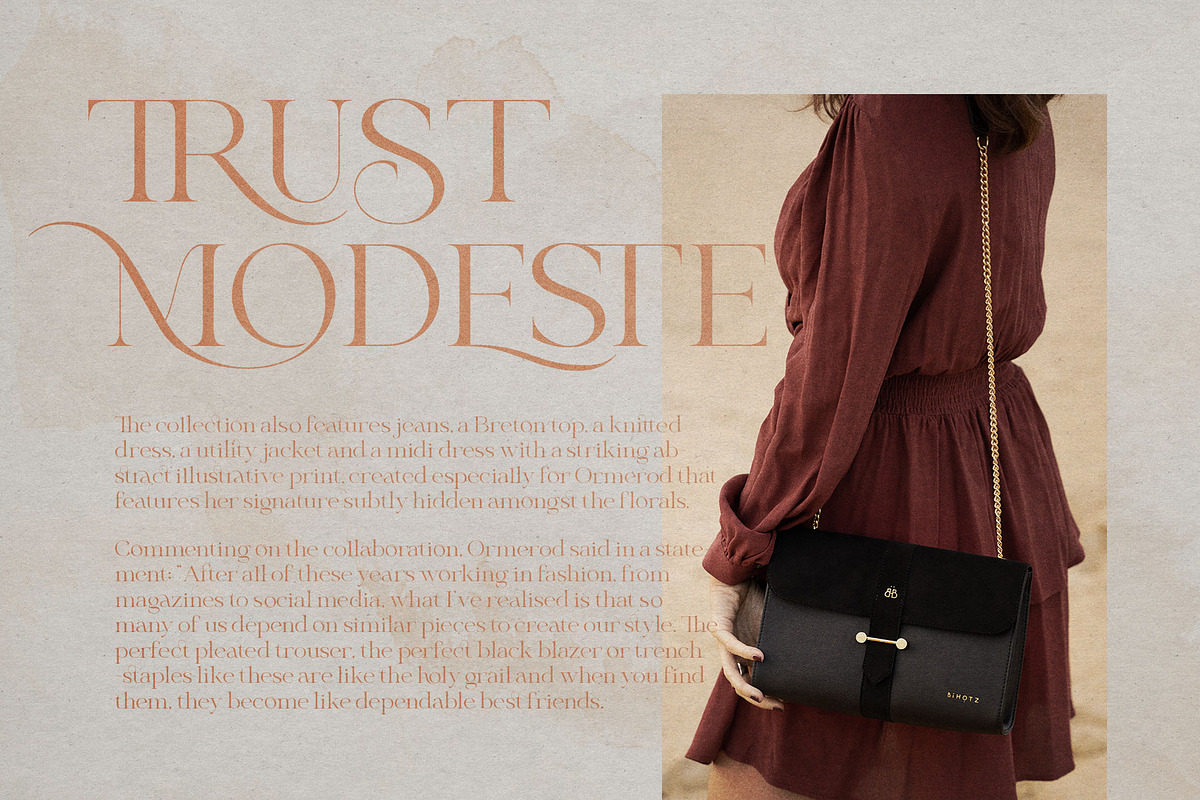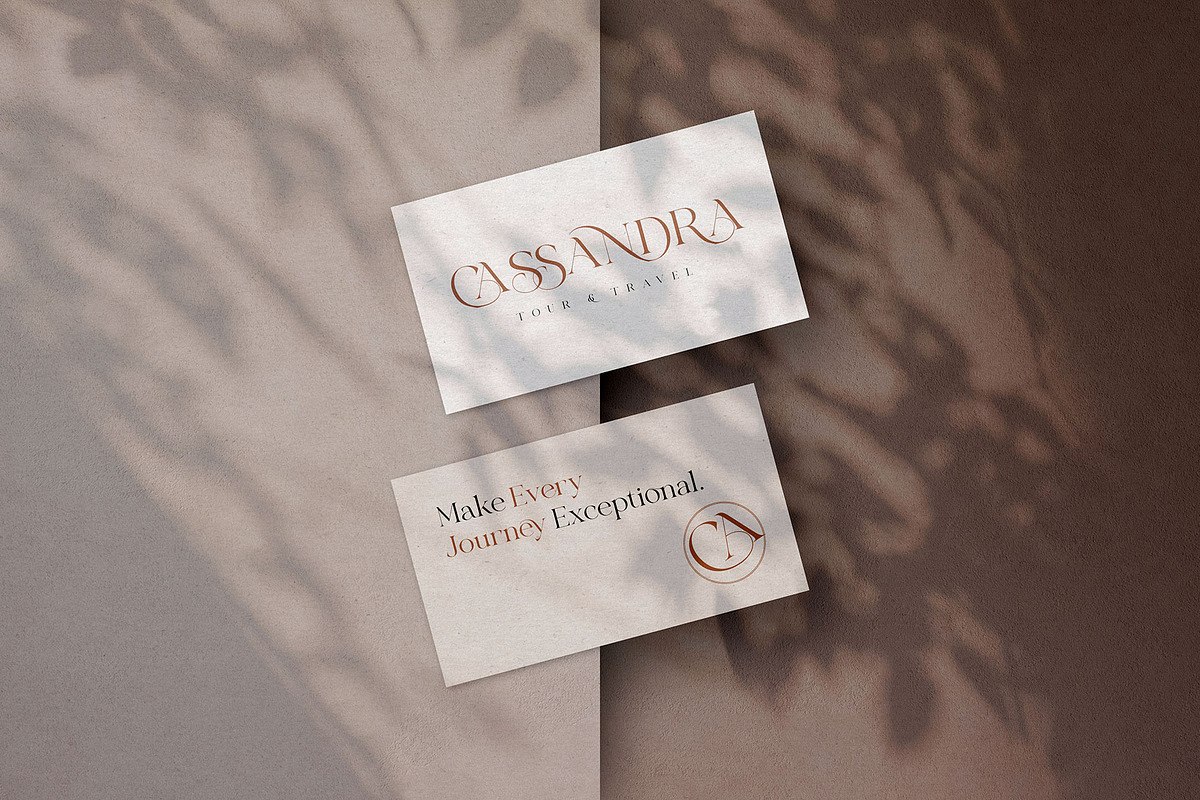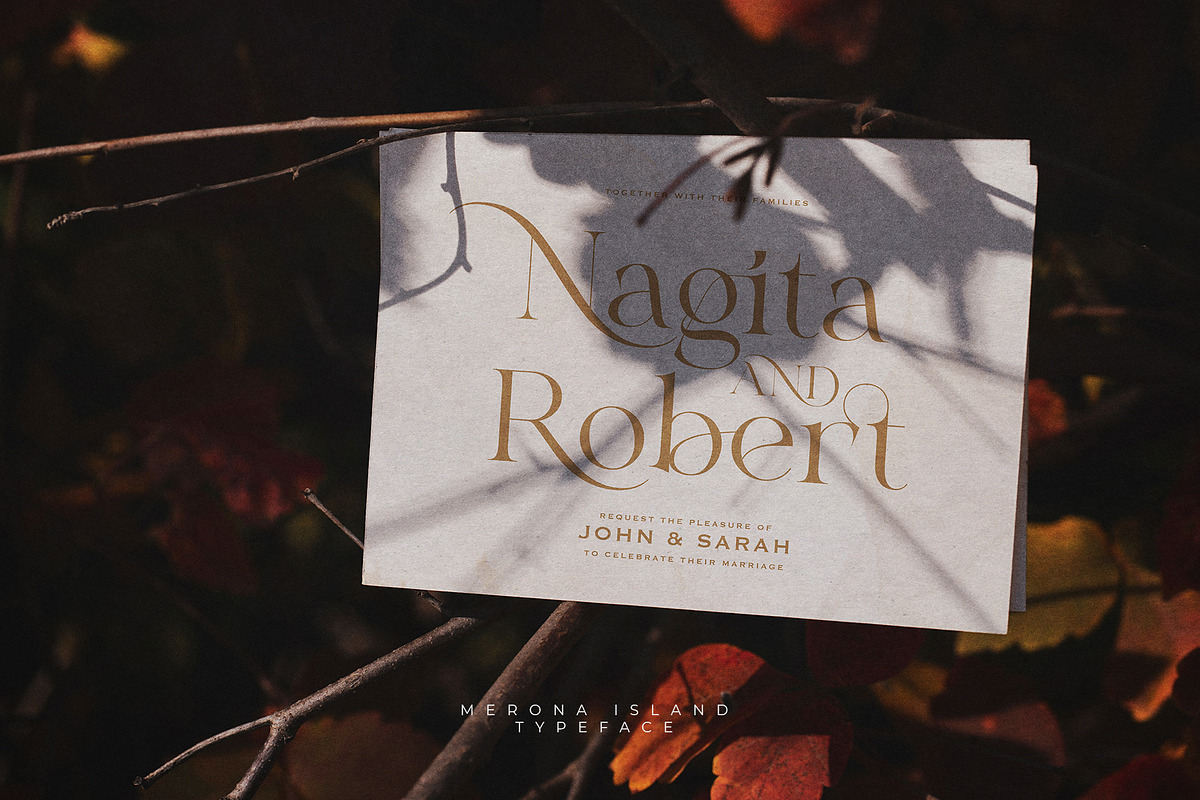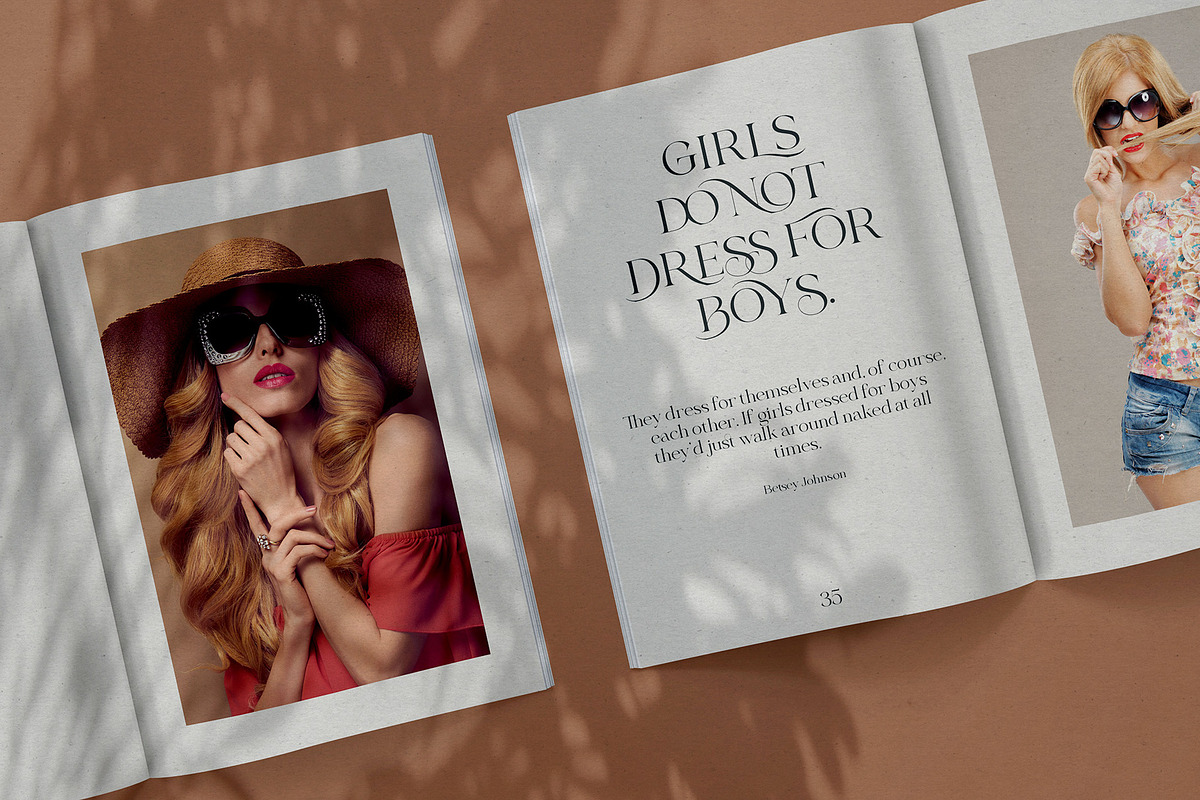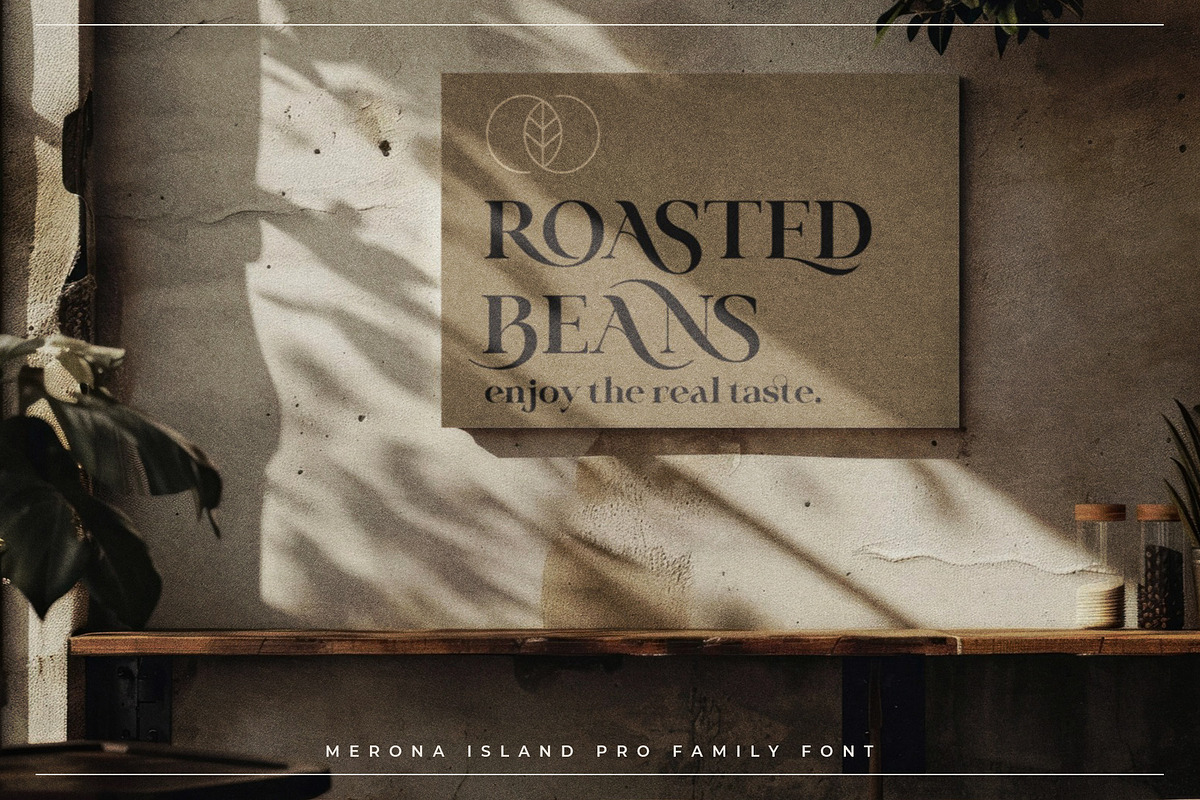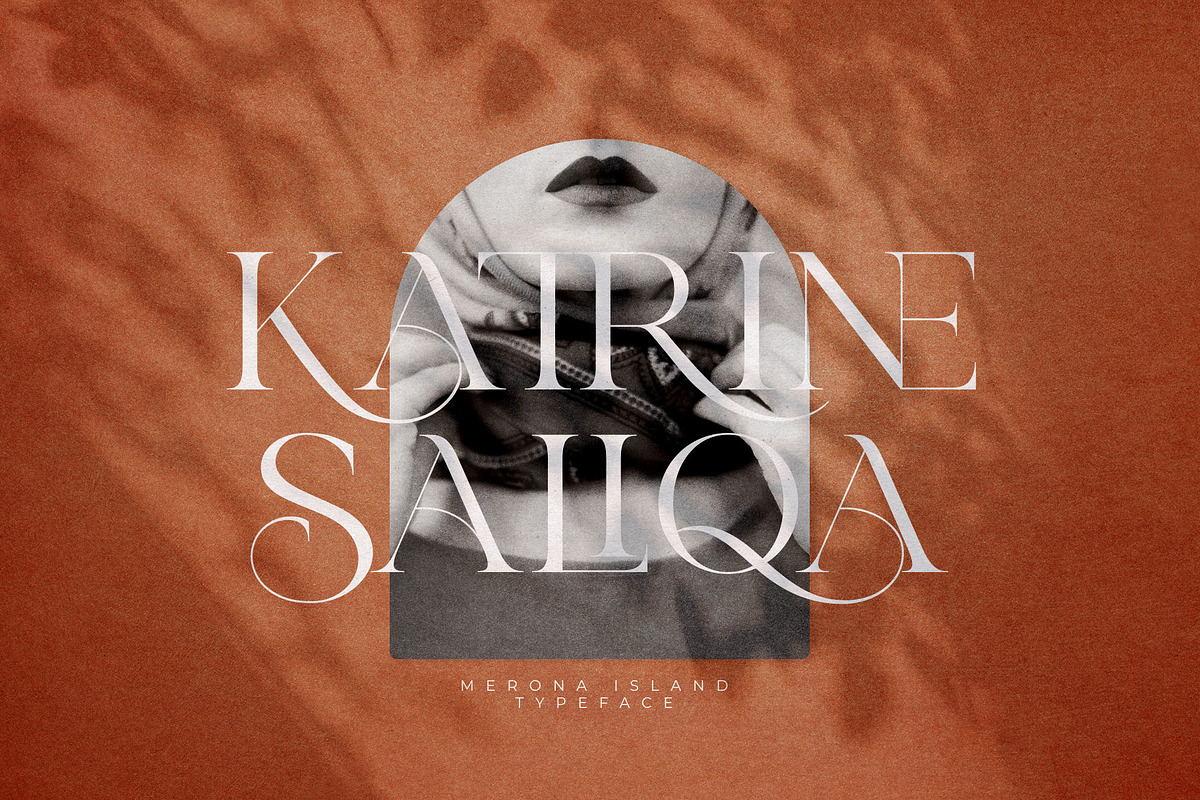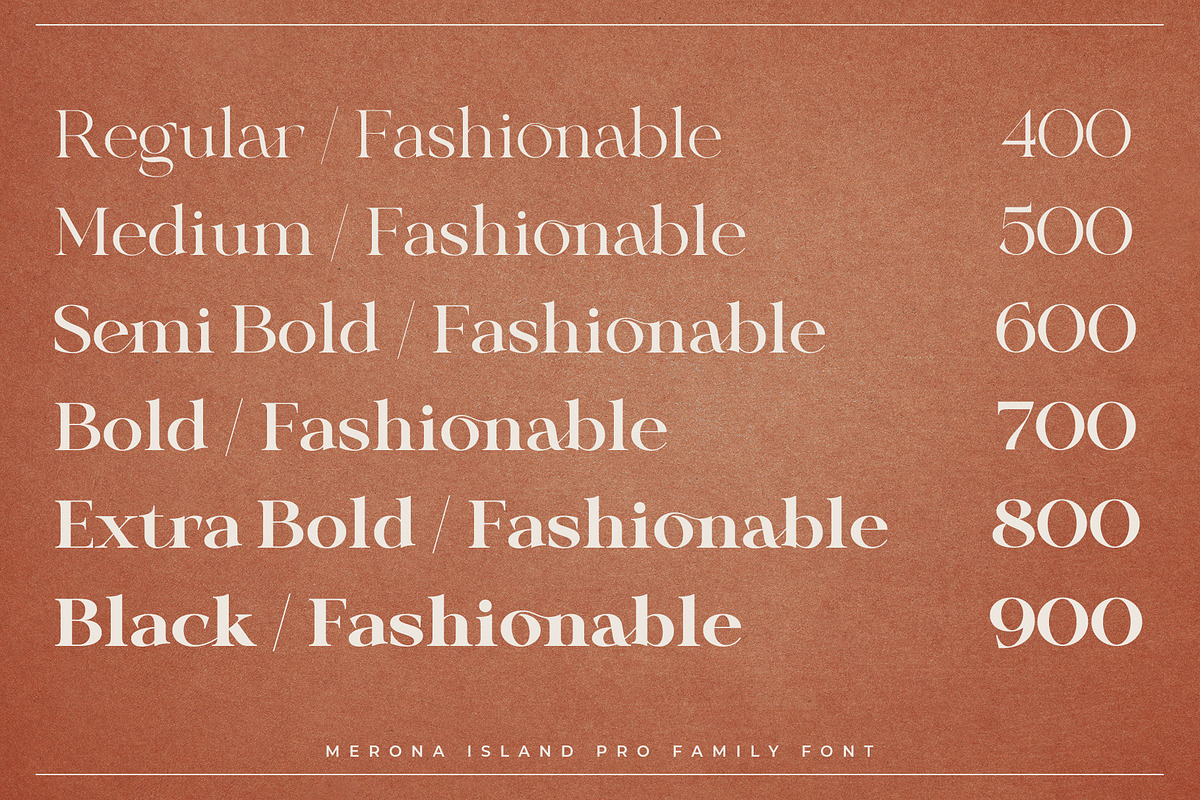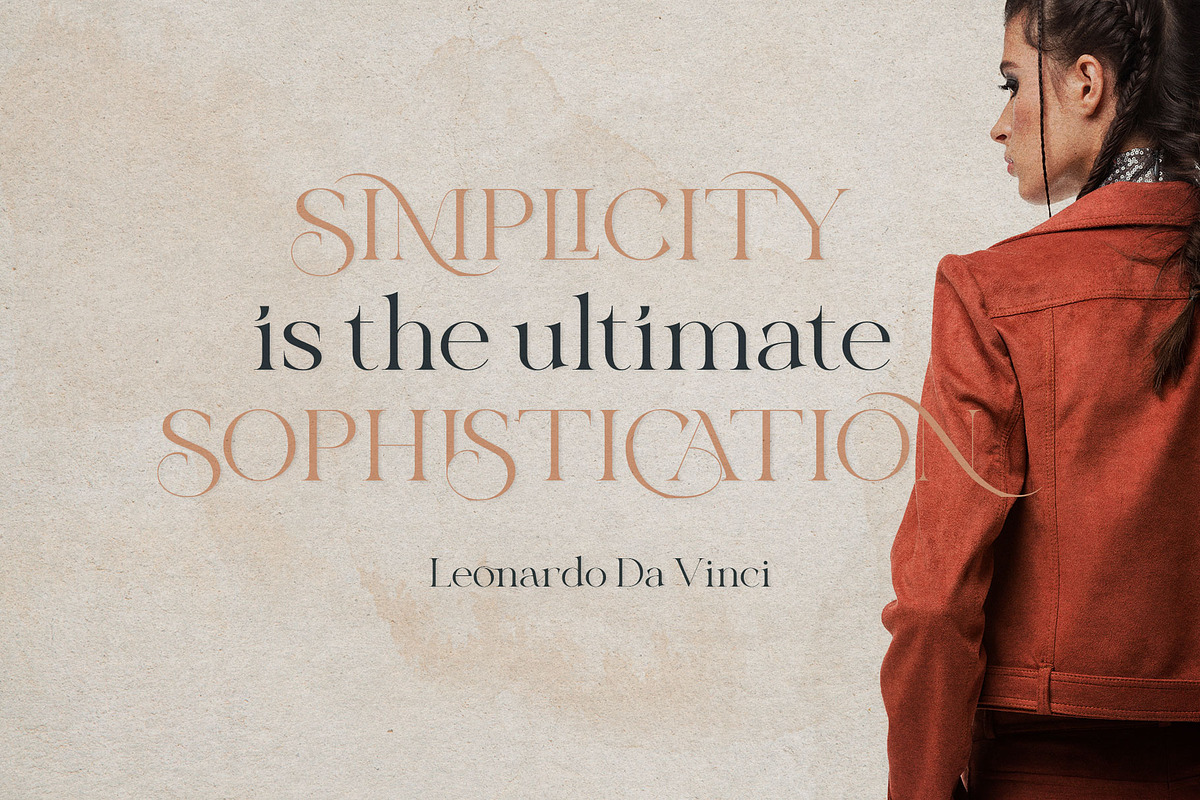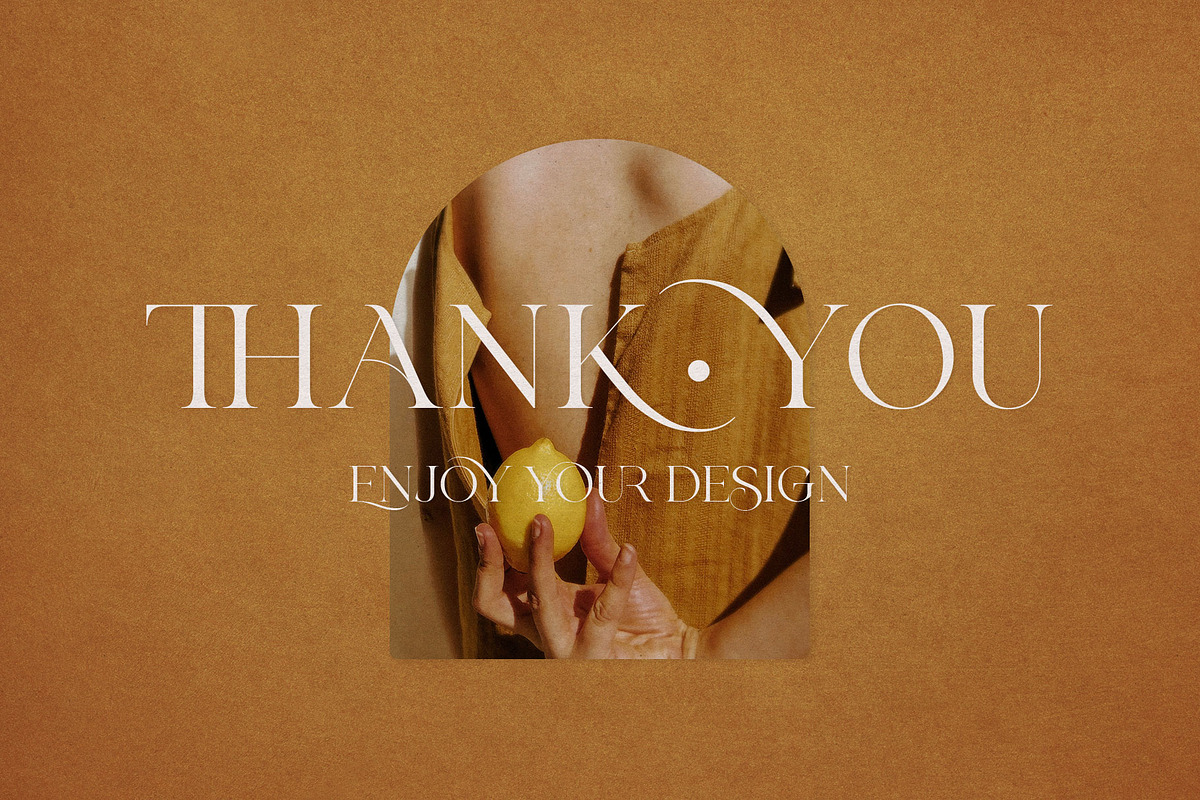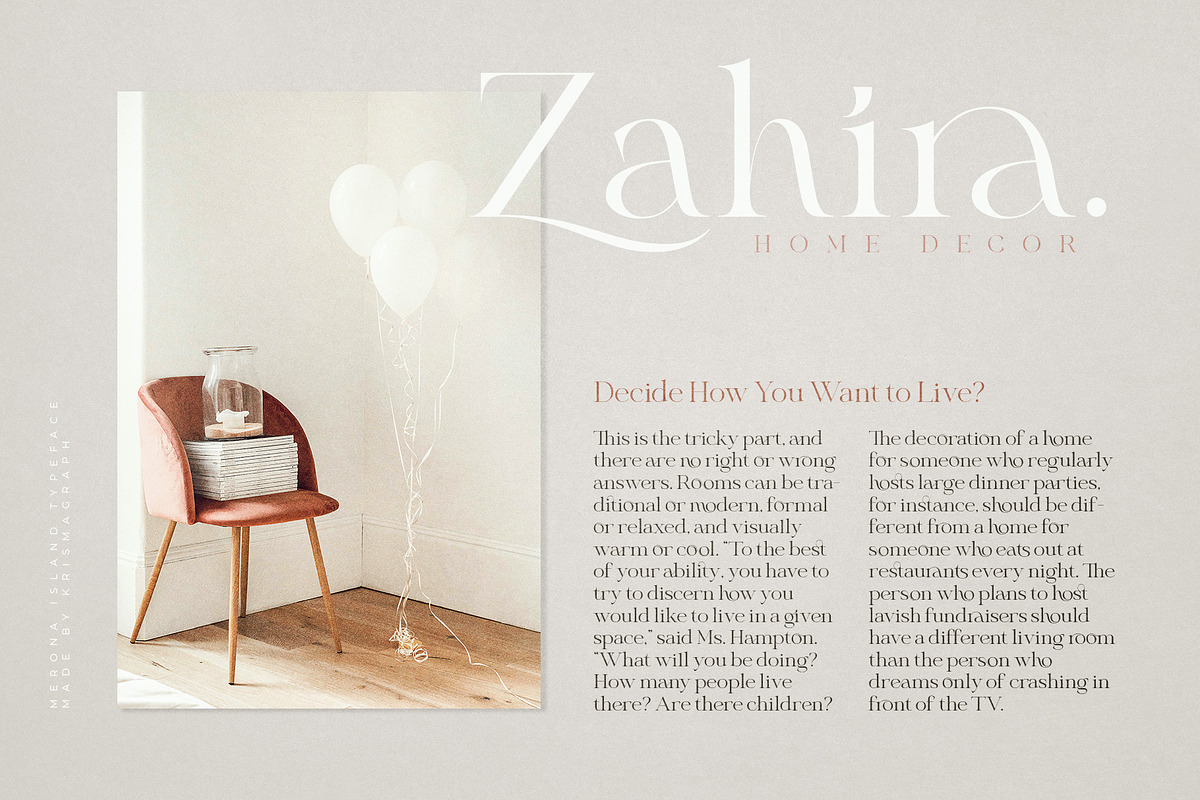
Merona Island PRO | 6 Font Pack
Merona Island PRO is a Modern Ligature Serif Font Family. It's soft curves mixed with high contrast glyphs, give it a feminine and masculine quality. It comes with 6 weight, 107 unique ligatures and 45 alternates. Great in layout design for quotes or body copy, best used as a display for headings, logos, branding, magazines, product packaging and invitations. . Its versatile aesthetic opens the door to endless creative possibilities, making it an essential addition to any designer’s toolkit.
- 6 Weight
- 107Ligatures
- 45 Stylistic Alternates